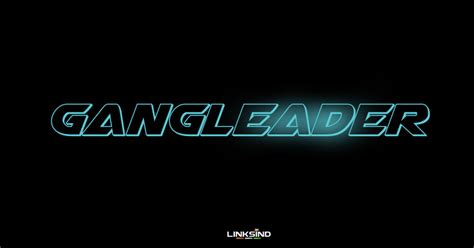
Unleash the Power and Style of Gang Leader Font with Our Impressive Font Generator
Unleash the Power and Style of Gang Leader Font with Our Impressive Font GeneratorAre you tired of using the same old boring fonts for your designs? Have you been searching for a unique and powerful font that will really make your message stand out? Look no further than Gang Leader font! With its commanding style and bold presence, this font is perfect for grabbing attention and making a statement. And now, with our font generator tool, you can easily unleash the power and style of Gang Leader in all your designs.
One of the key benefits of using Gang Leader font is its versatility. Whether you're creating marketing materials, social media graphics, or even a book cover, this font can help you achieve the look and feel you want. Its bold, blocky letterforms communicate strength and confidence, while its sharp angles and hard edges give it an edgy, aggressive vibe. And with our font generator tool, you can customize the size, color, and other details to perfectly match your brand's aesthetic.
But why stop with just one font? With our font generator, you can mix and match different fonts to create stunning visual effects. Combine Gang Leader with a more elegant script font to create a modern, high-contrast look. Or pair it with a more traditional serif font to create a classic yet standout design. With so many options at your fingertips, the possibilities are endless!The best part? Our font generator is incredibly easy to use. Simply enter your text, choose the font you want, and voila – a stunning design is born. You can preview your design before downloading it, making it easy to experiment with different options until you find the perfect look. And with our fast, reliable service, you can have your new design ready to go in no time.
If you're ready to take your designs to the next level, try using Gang Leader font with our impressive font generator today. With its powerful presence and endless customization options, this font is sure to make your message stand out and grab attention. So why wait? Give it a try and unleash the power and style of Gang Leader font today!"Gang Leader Font Generator" ~ bbaz
If you're looking for a font that exudes power and style, look no further than Gang Leader. This bold and commanding font is perfect for creating eye-catching headlines, logos, and other design elements that demand attention. However, finding the right version of this font can be a challenge. That's where our impressive font generator comes in.
What is Gang Leader?
Gang Leader is a distinctive font that was originally designed by Rian Hughes for his comic book series, The Hood. The font is inspired by the graffiti-style lettering that is often seen in urban areas, giving it a rebellious and edgy feel.
Why Use Gang Leader?
There are a few reasons why Gang Leader might be the perfect font for your project:
- Bold and Eye-Catching: Gang Leader is a highly visible font that will grab your audience's attention.
- Unique: While there are other fonts out there that are similar to Gang Leader, this font has its own distinct personality and flair.
- Versatile: Gang Leader can be used in a variety of settings, from logos and branding materials to posters and advertisements.
The Challenges of Using Gang Leader
While Gang Leader is a powerful and stylish font, there are some challenges associated with using it:
Unleashing the Power of Gang Leader with Our Font Generator
If you want to use Gang Leader in your designs but don't want to deal with the challenges listed above, our font generator is the perfect solution. With our generator, you can easily create your own version of Gang Leader without any of the headaches.